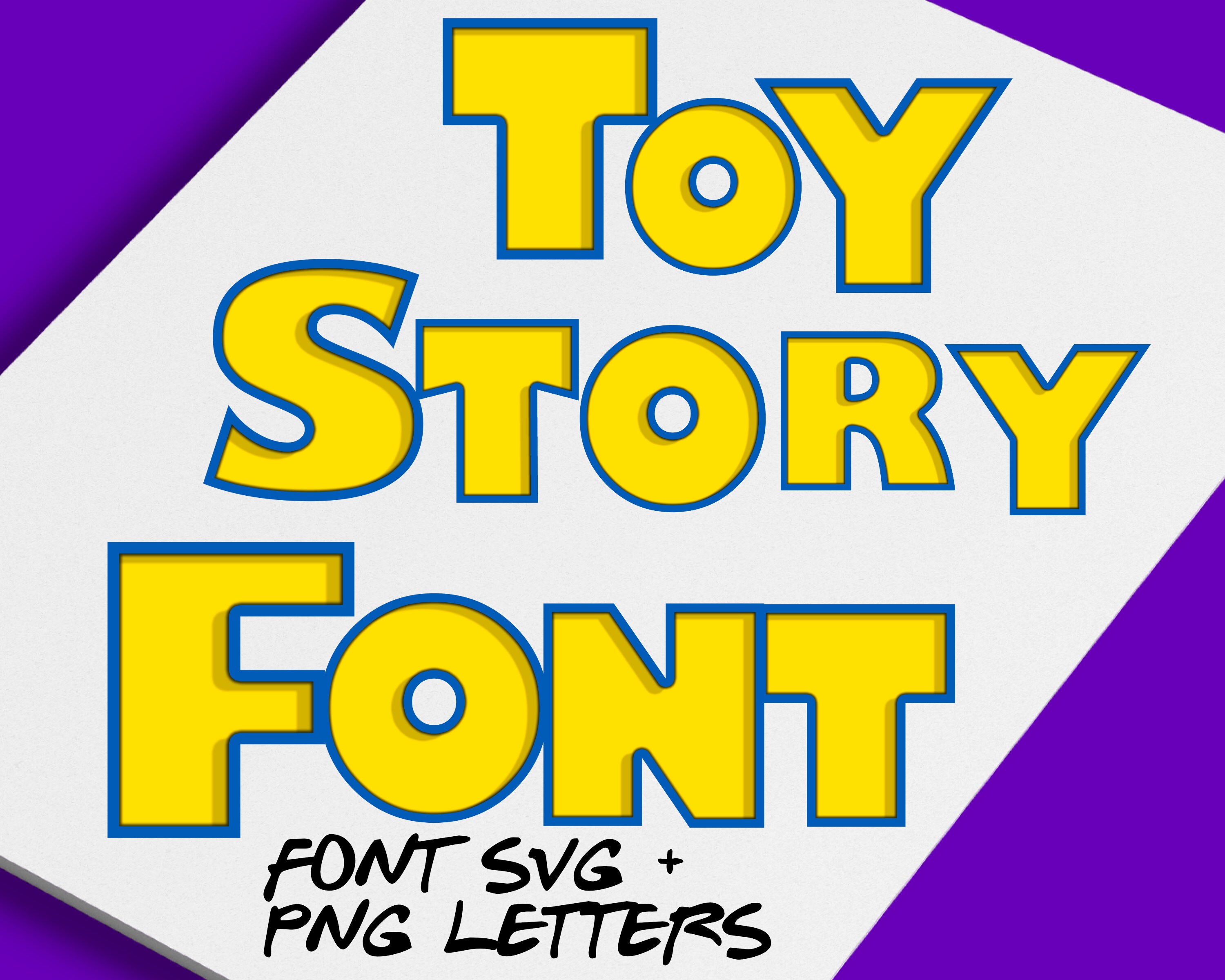
Choose a font, enter your text and get a similar logo design. Learn about the fonts used in the toy story logo and how to create a. Toy story font is a sans serif font used in the logo and slogans of an american animated film. Create a toy story like logo with this online tool. Learn about the comic font for toy and the gill sans font for story, and see other similar fonts in google fonts. Use it for personal and commercial projects, such as logos, designs and more. Learn how to add the font to your computer with a tutorial for mac and pc. Download the classic toy story font used on all four movies for free. Download it here and learn more about its styles, similar fonts, and faqs. Choose from willy and rumble fonts, similar to the ones used in the pixar film.
Toy Story Font Free Choose from willy and rumble fonts, similar to the ones used in the pixar film. Toy story font is a sans serif font used in the logo and slogans of an american animated film. Learn about the comic font for toy and the gill sans font for story, and see other similar fonts in google fonts. It is free for. Toy Story Font Free.
Toy Story Font Free Toy story font is a sans serif font used in the logo and slogans of an american animated film. Find out the fonts used in the toy story logo and how to download them for free. Download it here and learn more about its styles, similar fonts, and faqs. Learn about the comic font for toy and the gill sans. Toy Story Font Free.
Toy Story Font Free Create cool graphics for toy story font with our text generator and download them for free. It is free for personal and commercial use and supports multiple languages. Choose from willy and rumble fonts, similar to the ones used in the pixar film. Download the classic toy story font used on all four movies for free. Choose a font, enter. Toy Story Font Free.
Toy Story Font Free Choose a font, enter your text and get a similar logo design. Download it here and learn more about its styles, similar fonts, and faqs. Learn how to add the font to your computer with a tutorial for mac and pc. Toy story font is a sans serif font used in the logo and slogans of an american animated film.. Toy Story Font Free.
Toy Story Font Free Use it for personal and commercial projects, such as logos, designs and more. Learn how to add the font to your computer with a tutorial for mac and pc. Create text graphics with toy story font online and download them for free. Download the classic toy story font used on all four movies for free. It is free for personal. Toy Story Font Free.